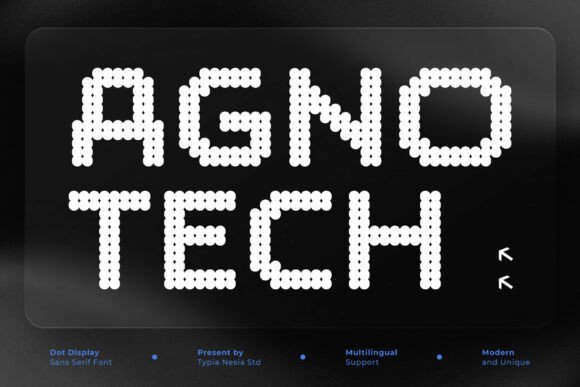
Introduction to Agnotech Font
Agnotech – Modern Futuristic Dot Pixel Sans Font – Retro Vintage Game & Tech Display Font Agnotech is a modern, dot-matrix style display font.
It features a clean, striking pixel construction that gives it a modern and futuristic appearance, while subtly nodding to retro 8-bit aesthetics, making it perfect for tech company logos, software interfaces, event posters, web and app design, especially in scifi or gaming contexts and any projects requiring a clear and digital look Agnotech includes extensive multilingual and punctuation support.
Key Features of Agnotech Font